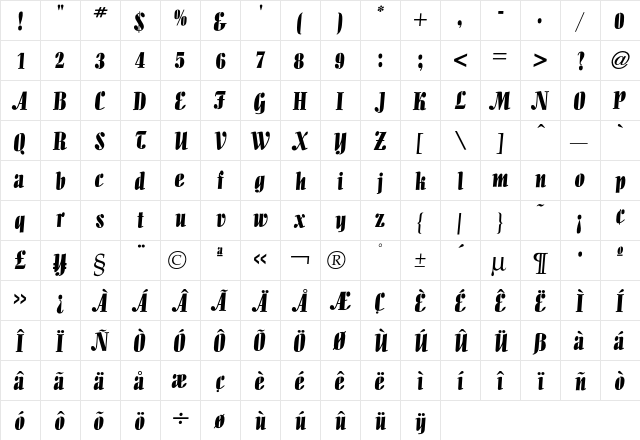
Allegro Font
Design Context for Allegro Typeface
Allegro offers clean, dependable letterforms without strong stylistic allegiance, making it a practical choice for designers who need flexibility.
Pro Tip: Pair Allegro with a font of contrasting weight or personality to build a more expressive typographic hierarchy.